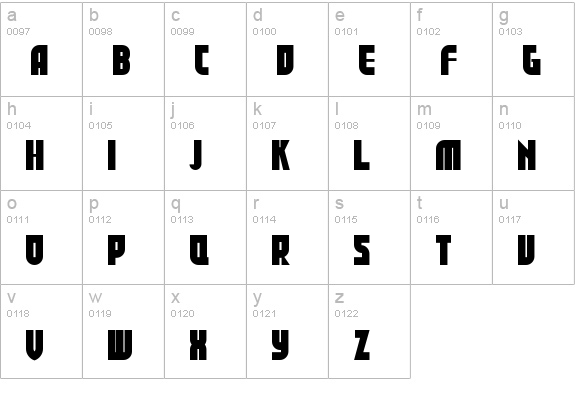
Shall We Gdansk NF Font Details
Shall We Gdansk NF font is a stunning display typeface that exudes elegance and sophistication. With its intricate details and stylish flair, this font is perfect for adding a touch of class to your design projects. The graceful curves and unique letterforms make Shall We Gdansk NF font a standout choice for logos, branding, invitations, and more. The best part? Shall We Gdansk NF font is completely free to download at FontsMarket.com. This means you can easily access this gorgeous font and use it in your creative projects without breaking the bank. Say goodbye to expensive font purchases and hello to high-quality design assets that won't cost you a penny. Whether you're a seasoned designer looking to freshen up your typography or a beginner exploring new styles, Shall We Gdansk NF font is a fantastic choice. Download it today and let your creativity soar with this beautiful and freely available typeface.